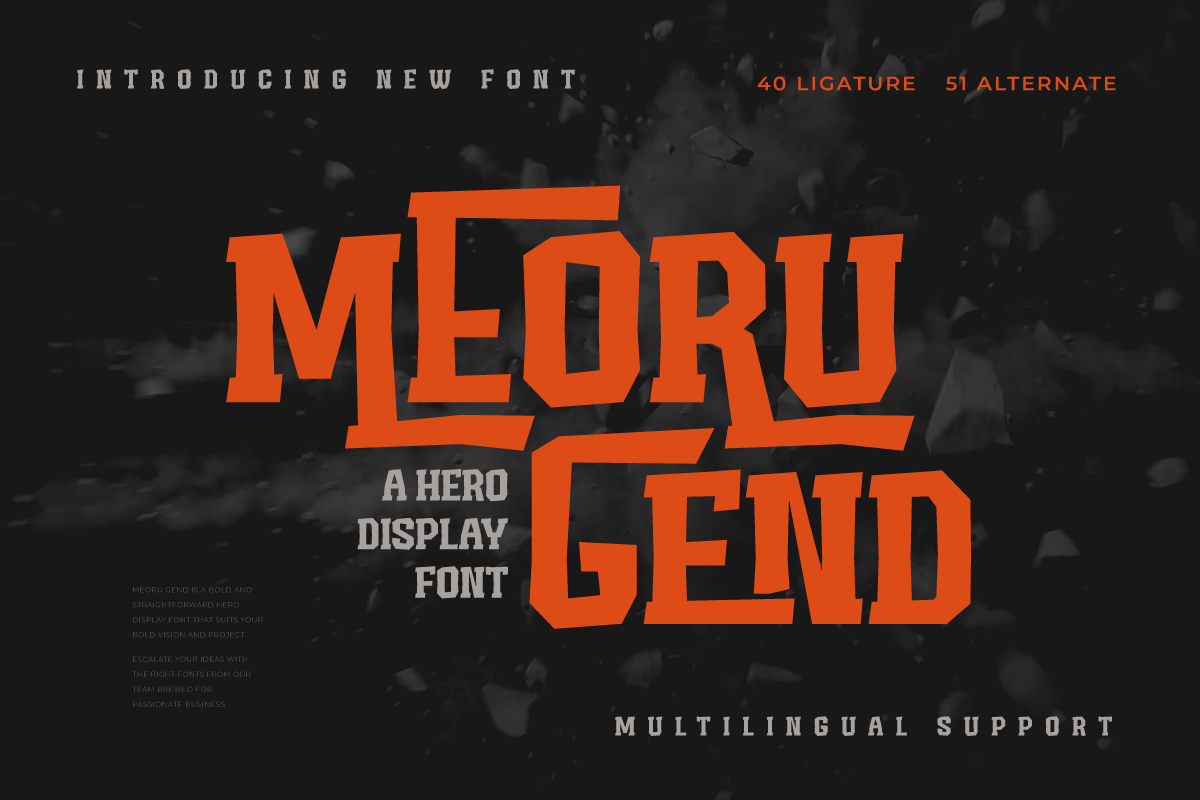
MEORU GEND | Display Hero Font Free Download is a bold, powerful typeface designed to make a statement. With its strong, geometric shapes and dramatic presence, this font is perfect for headlines, logos, posters, branding, and any creative project that requires a commanding visual impact.
The font combines sleek modern lines with a dynamic and slightly futuristic feel, making it ideal for tech brands, sports marketing, movie posters, or anything that needs to exude strength and confidence.
Make your design projects unforgettable with the powerful, bold style of MEORU GEND!